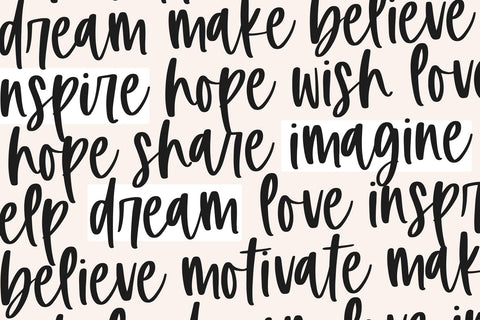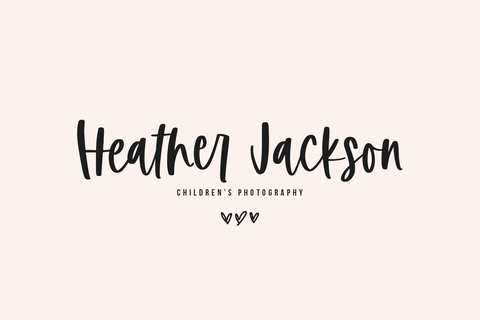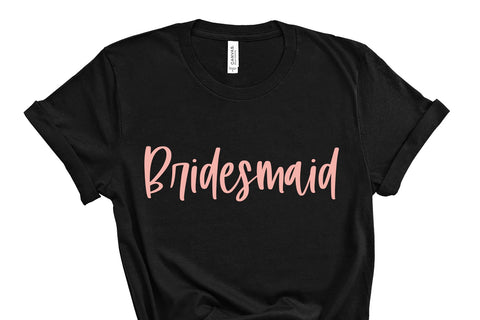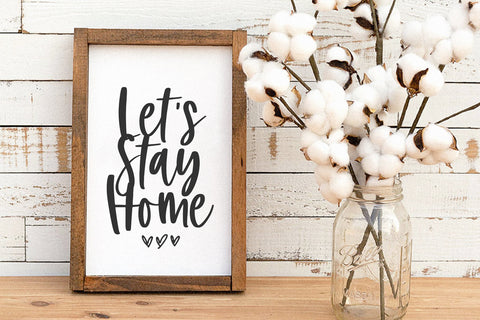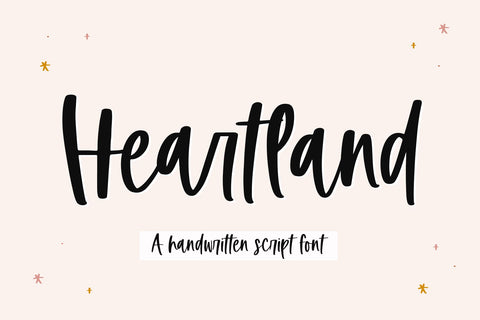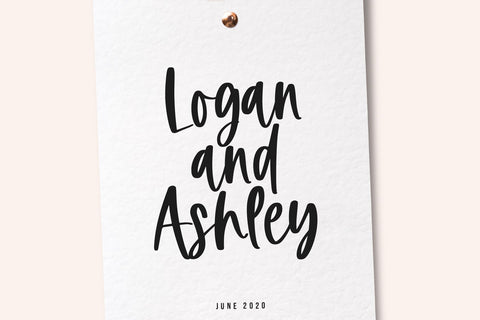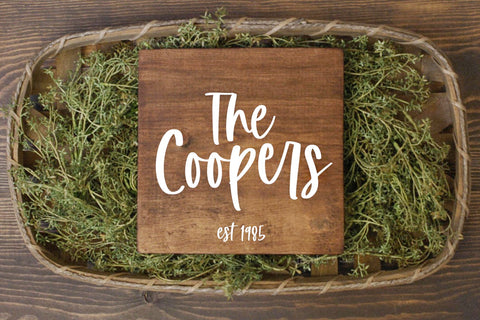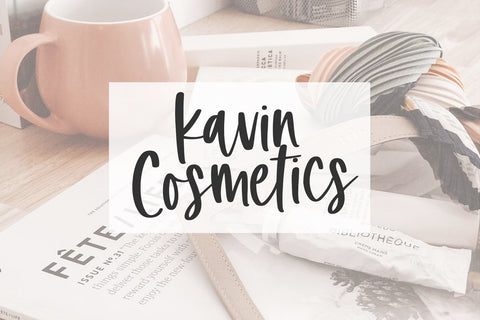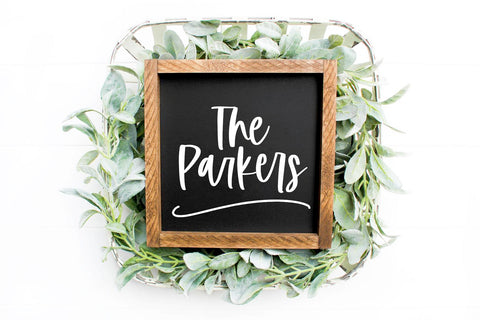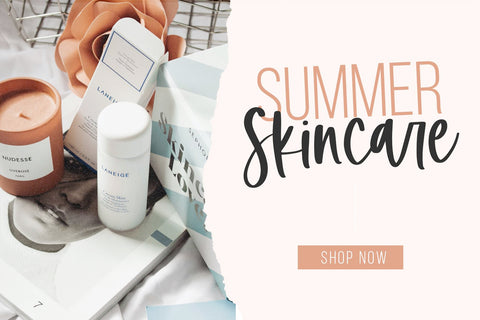
Heartland - Cute Handwritten Script Font
Heartland is a cute handwritten script font!
This font is perfect for quotes, shirt designs, websites, branding, children's designs, blogs, logos, invitations and more!
Most accent characters included.